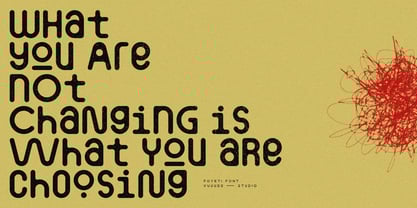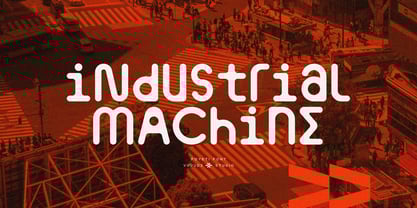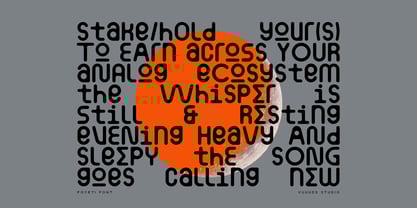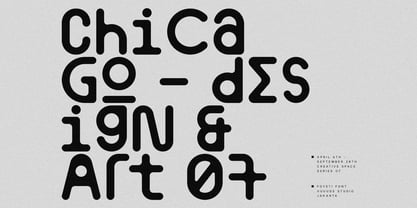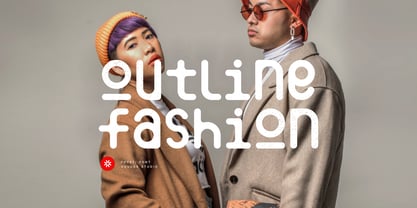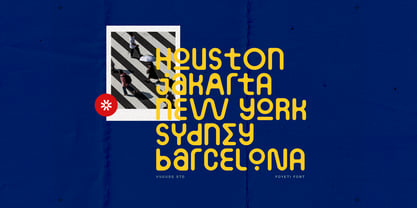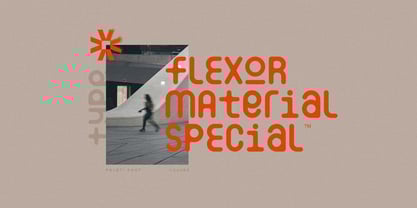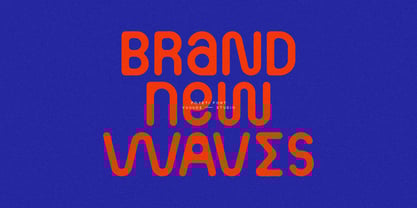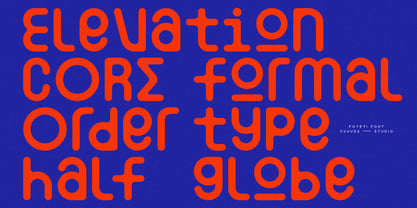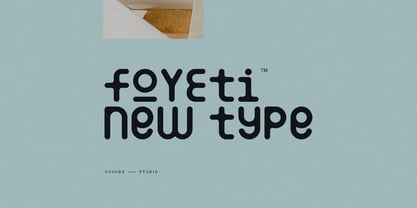
Foyeti
by vuuuds
The Foyeti Font Family was designed by Agung Syaifudin and published by vuuuds. Foyeti contains 1 styles. More about this family
Introducing Foyeti Font!
Foyeti is modern sans serif font, every single letters have been uniquely crafted.
Designers: Agung Syaifudin
Foundry: vuuuds